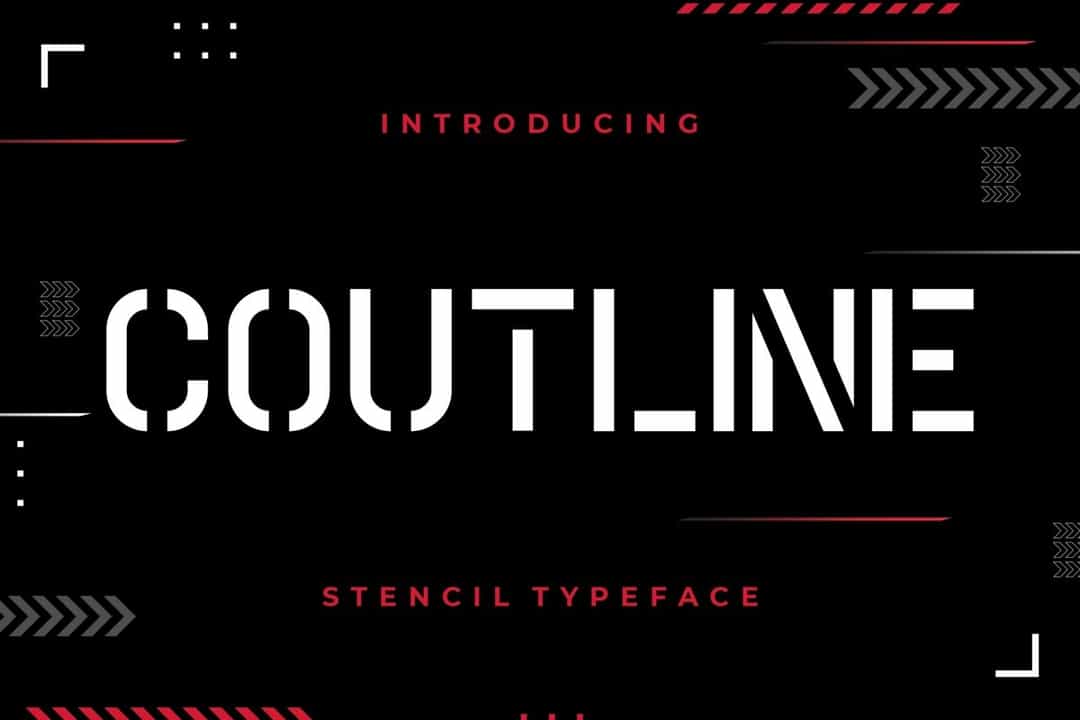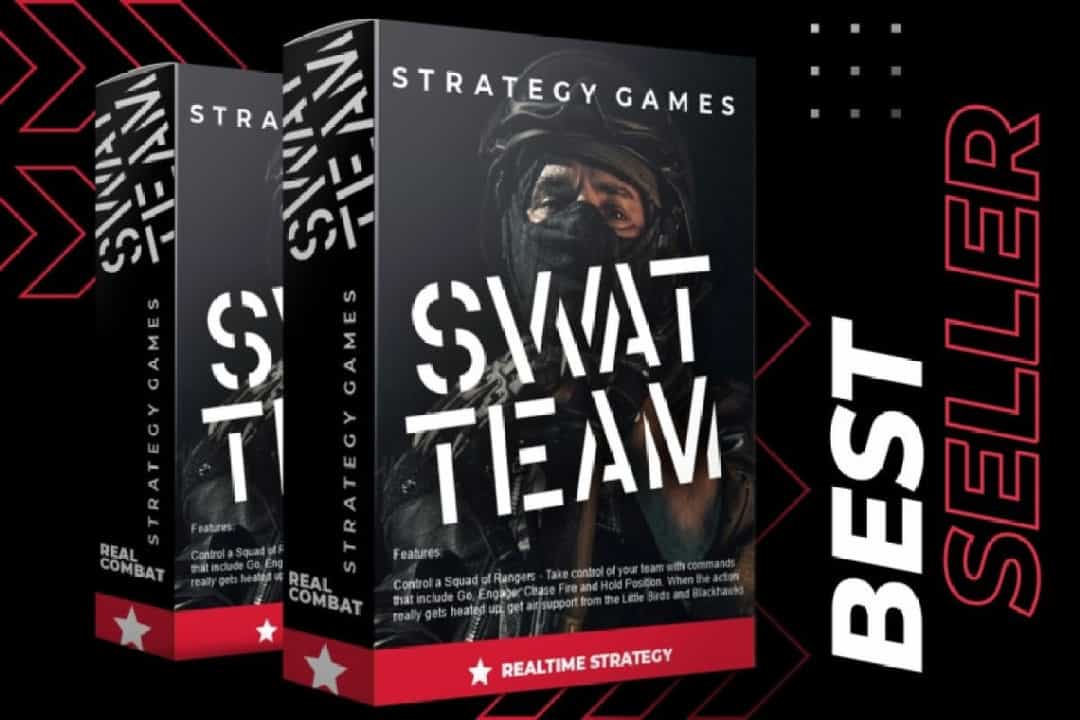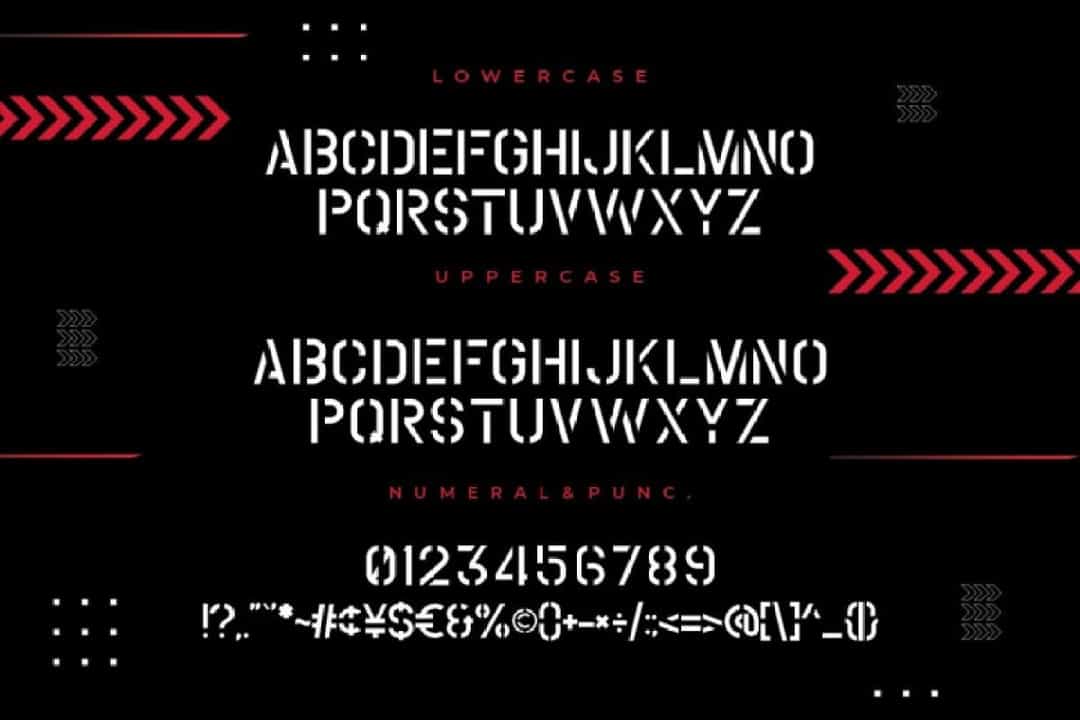
Discover Coutline Typeface, part of the Sans Serif Display collection—a versatile and unique font perfect for adding a personal touch to your projects. Download it for free and enjoy crafting designs with style, from invitations to social media posts. This font is available exclusively for personal use, giving you the freedom to create without limits. Unlock your creativity with Coutline Typeface today!
Coutline Typeface can be best described as an all-caps stencil display font influenced by military aesthetics and urban writing. Ideal for watermarks, photography posts on social media ads, logos, branding invitations, product designs, labels, stationery, wedding designs, packaging, product special events, any event that requires handwriting, this font stands out!